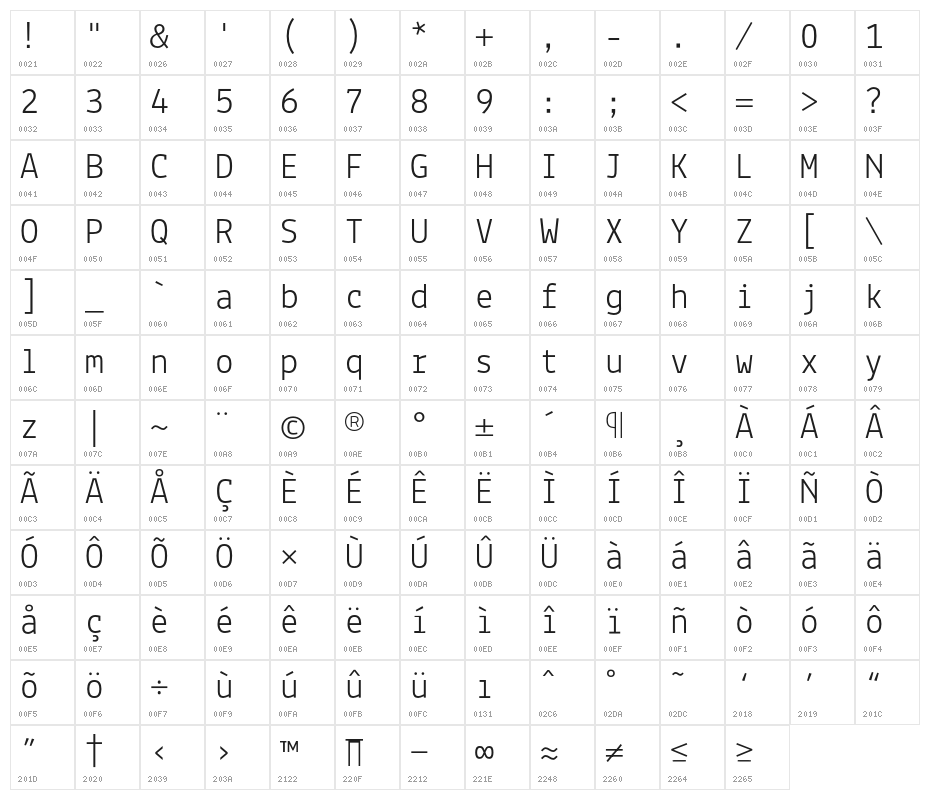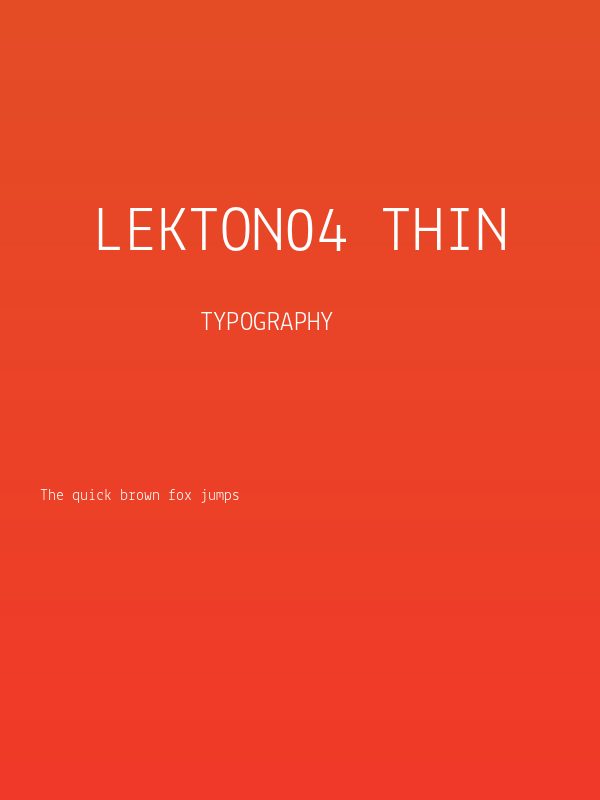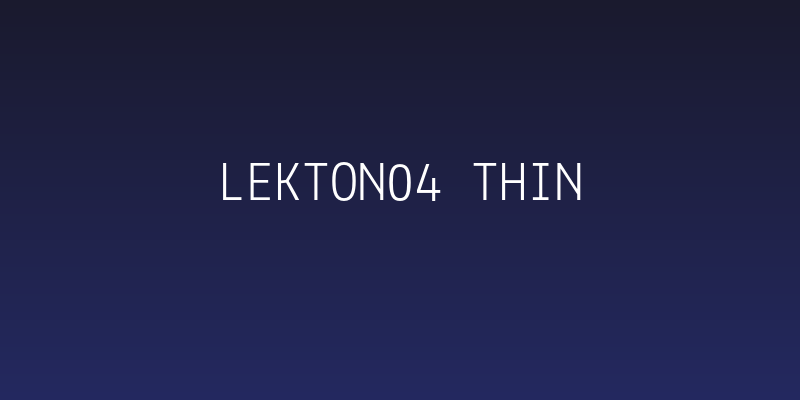
Lekton04 Thin Font
Lekton04 Thin Description
This font features a clean, geometric design with a modern aesthetic. The characters are constructed with precise, straight lines and minimal curves, giving it a technical and contemporary feel. The uppercase letters are uniform in height, while the lowercase letters maintain a consistent baseline, enhancing readability. The numerals are clear and distinct, making them suitable for data presentation. Special characters are well-defined, supporting a wide range of uses. Overall, the font's simplicity and clarity make it versatile for various applications.
Proposed ProjectsIdeal for technical documents, digital interfaces, modern branding, and minimalist design projects.